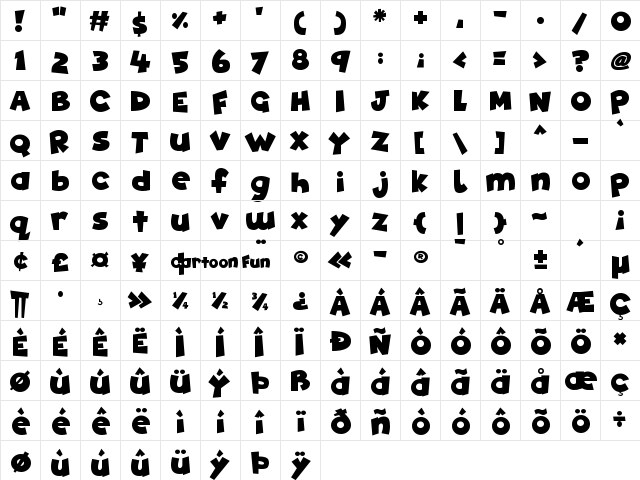
Cartoon Fun Regular Font Preview
Cartoon Fun Regular
Design Context for Cartoon Fun Typeface
Cartoon Fun trades formality for fun, with bouncy, characterful letterforms that bring warmth and energy to any project.
Font Pairing: Pairs well with a rounded or humanist sans for body copy, maintaining the friendly tone without relying on Cartoon Fun to carry extended reading.
Pro Tip: Use Cartoon Fun at larger display sizes where its expressive character can land. Pair with a clean, simple sans for body copy to maintain readability.